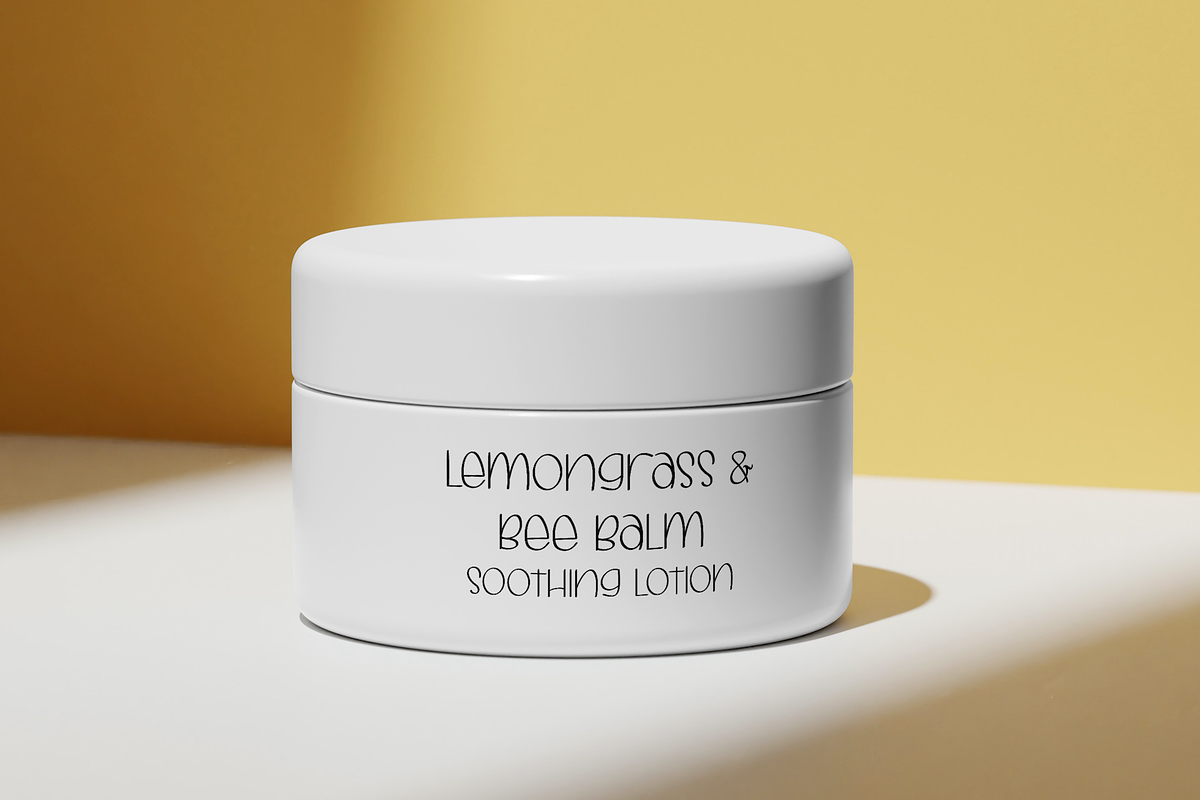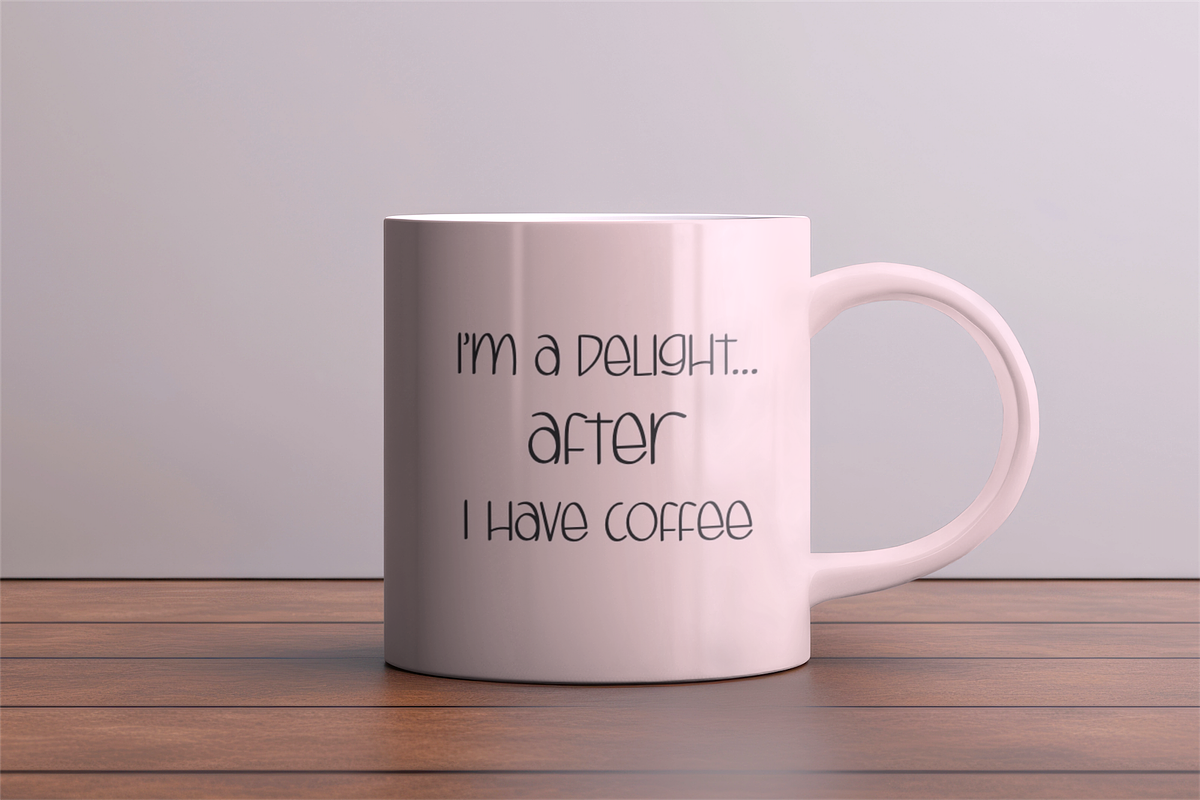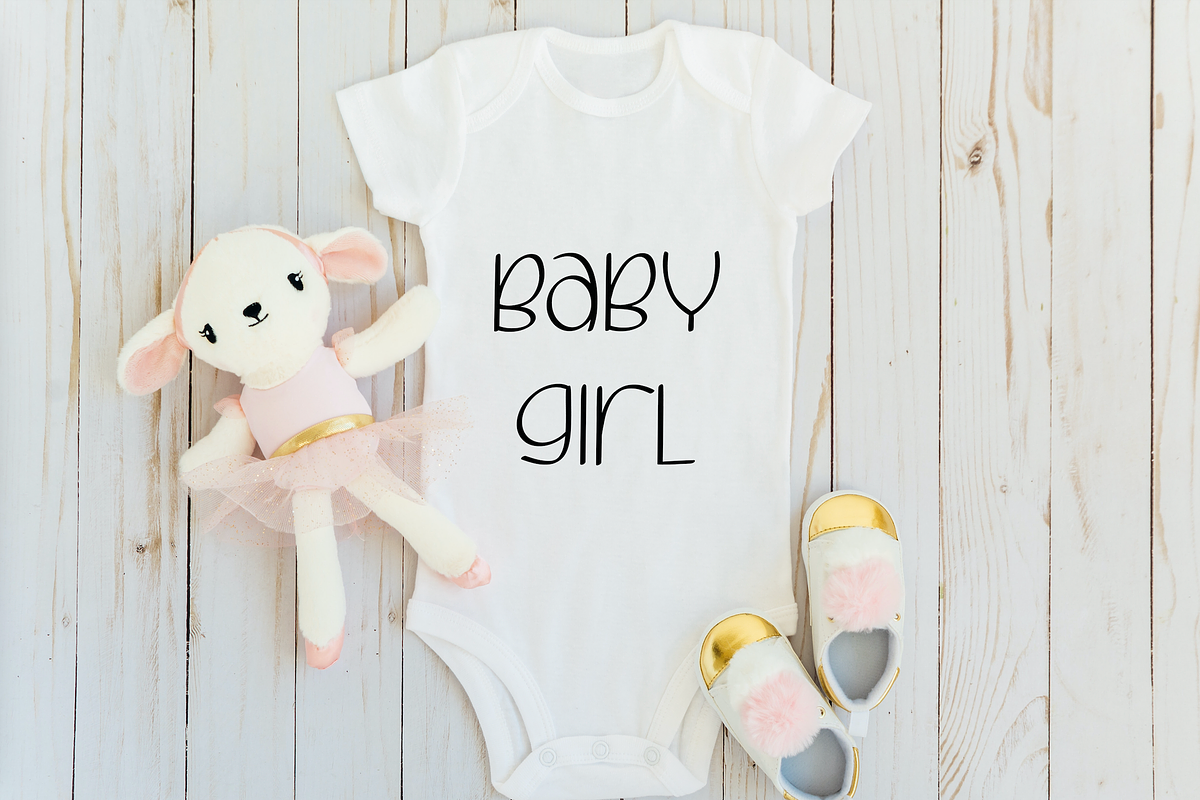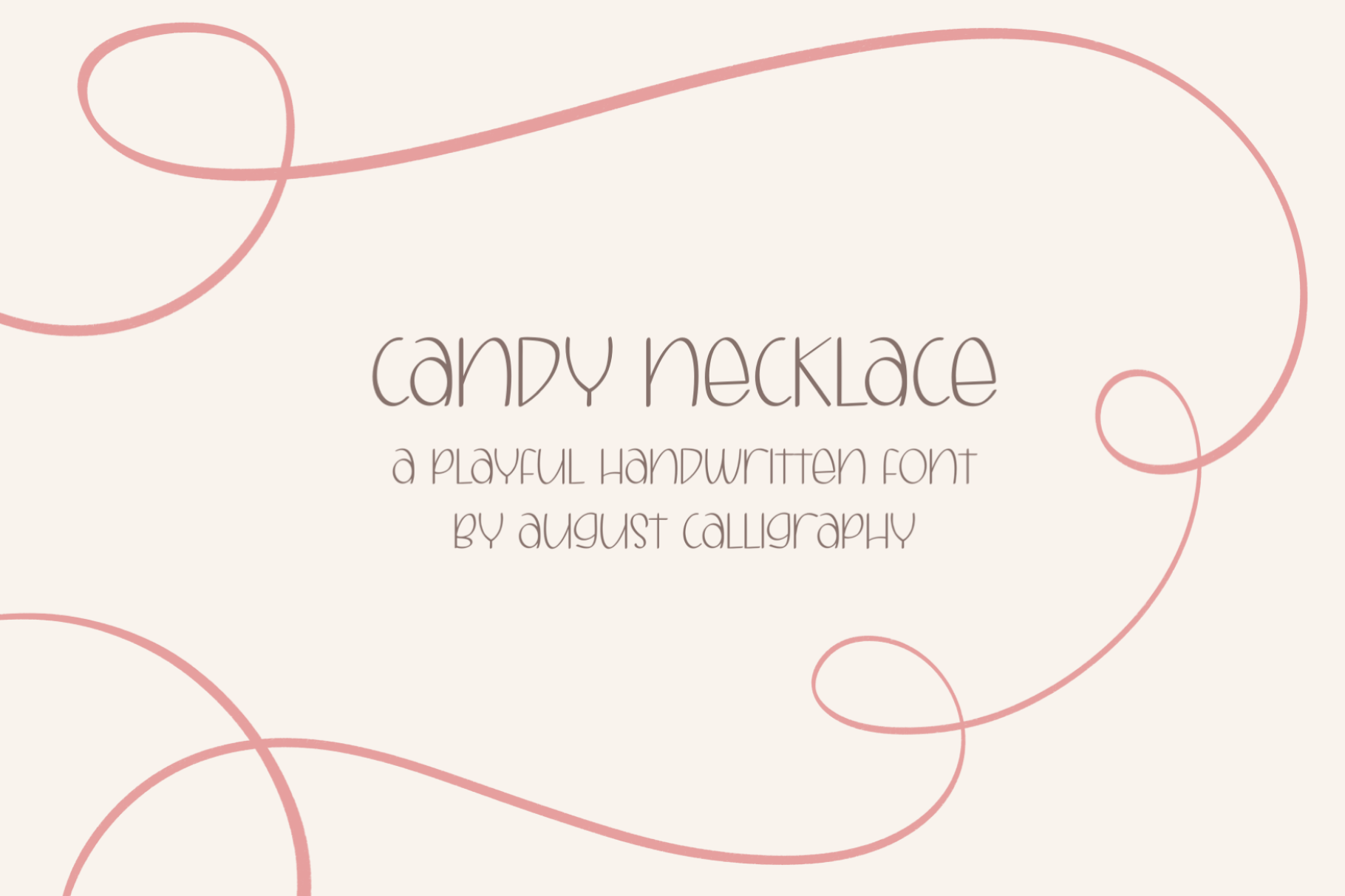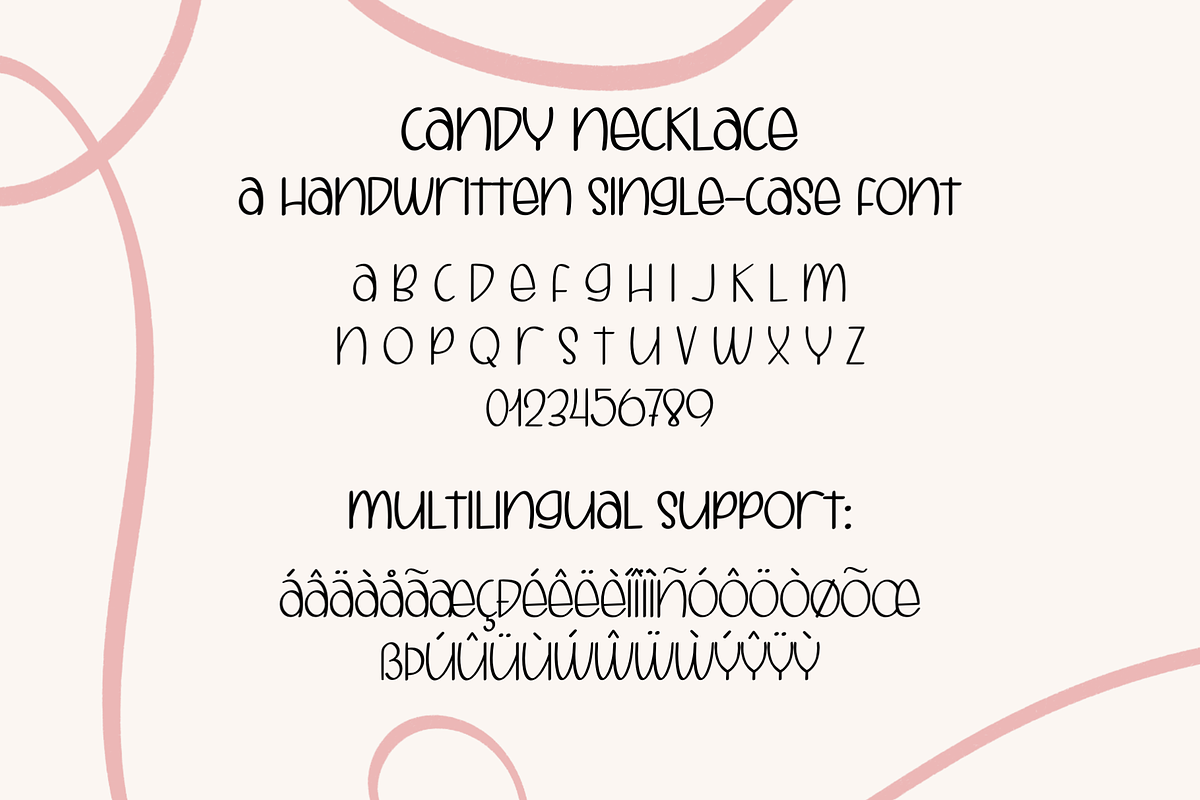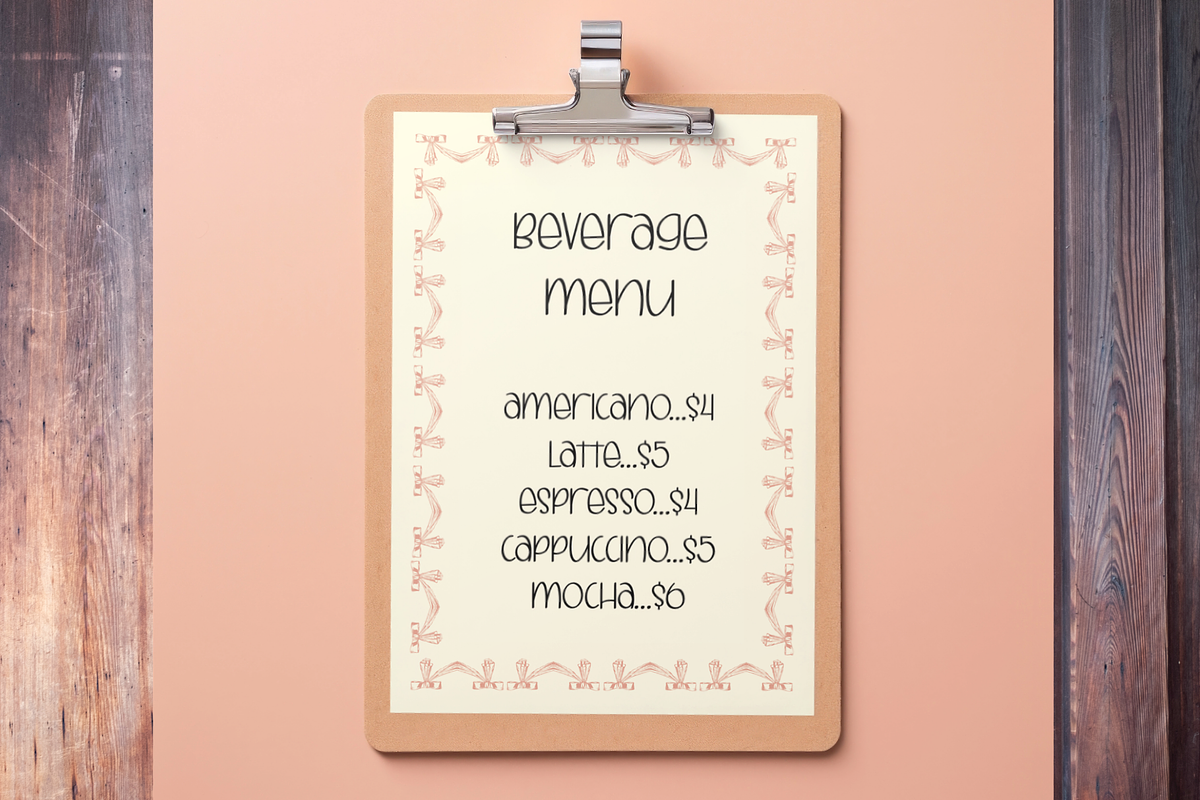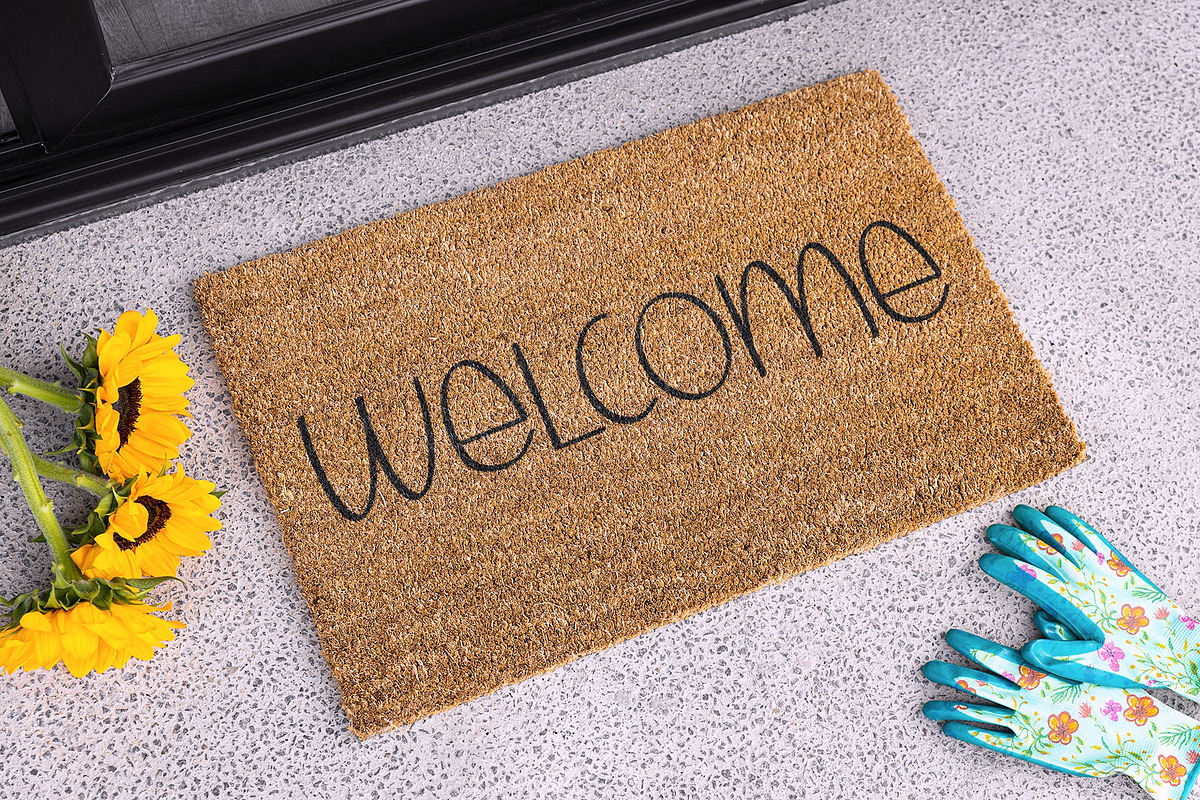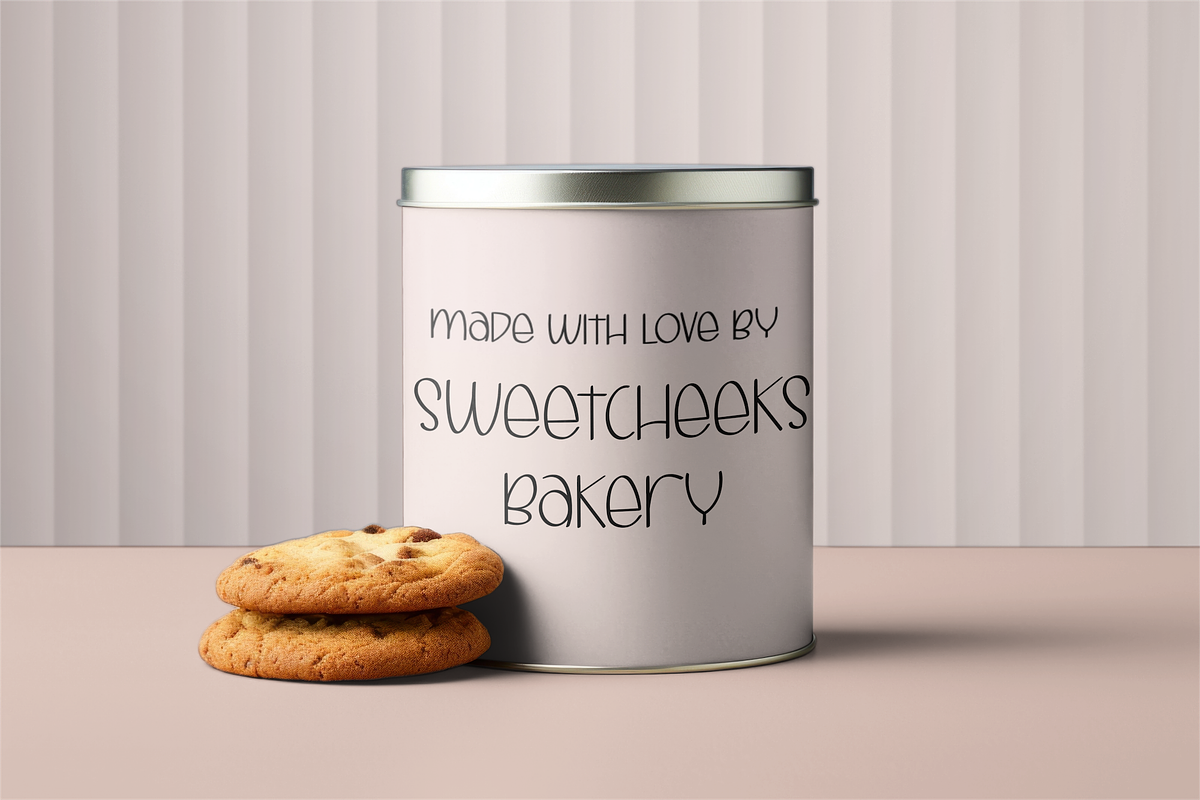
Candy Necklace Handwritten Sans Font
CANDY NECKLACE is a fun handwritten font with multilingual support. Featuring a playful mix of uppercase and lowercase characters, Candy Necklace is perfect for logos, art, branding, home decor, social media...anywhere you'd like a quirky handcrafted touch.
Please note--this is a single case font. You can type with capital or lowercase letters and the characters will be the same.
This font includes numbers and punctuation, symbols, and multilingual support for Western European languages.